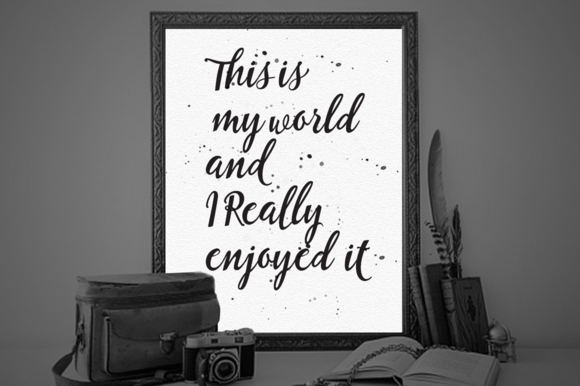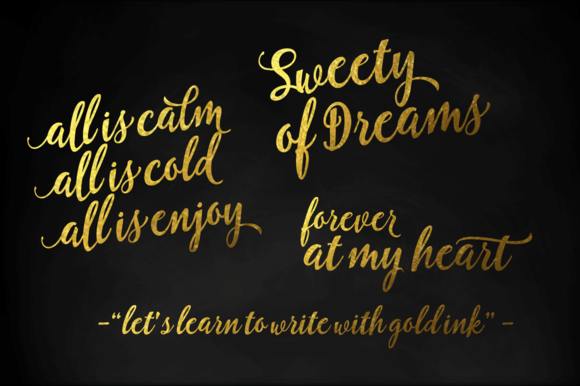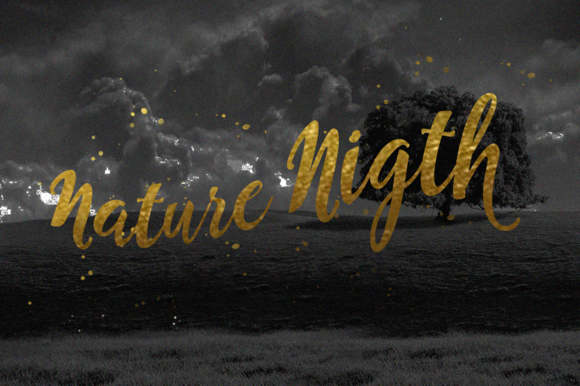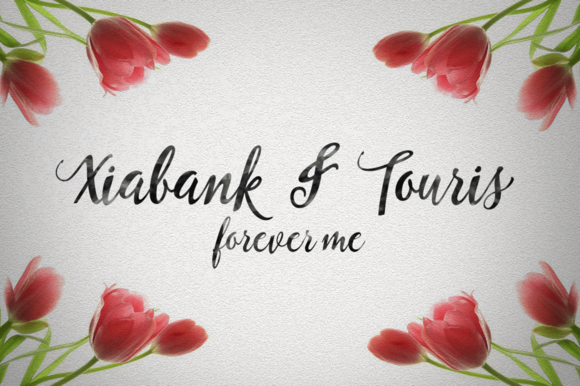
Emillia Script
Emillia is a brush script that is beautiful and unique, it is a model of modern calligraphy typefaces, in combination with a calligraphy writing style.
The Features of this fonts is;
• Contextual swashes
• Standart ligatures
• Discretionary ligatures
• Initial Forms
• Terminal Forms
• Stylistic Alternates
• Stylistic sets